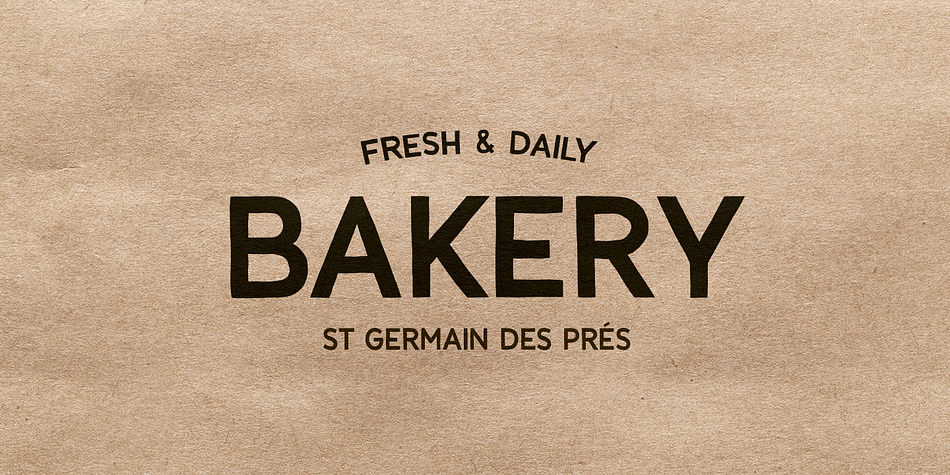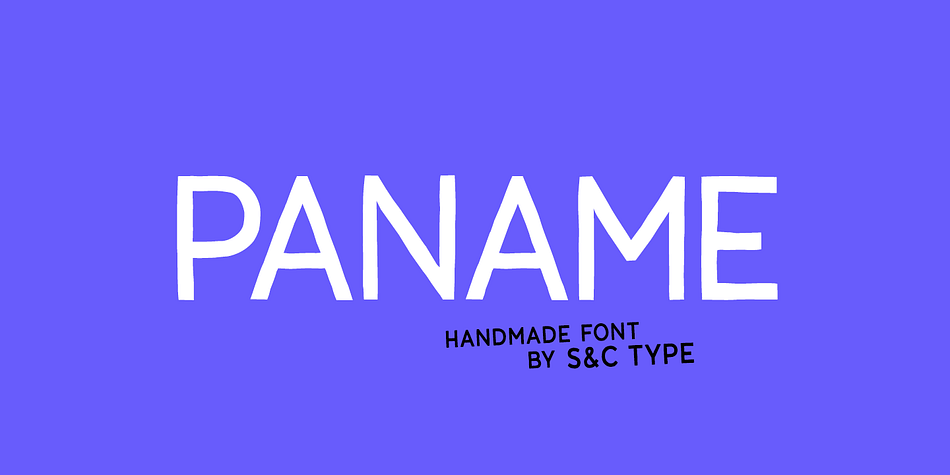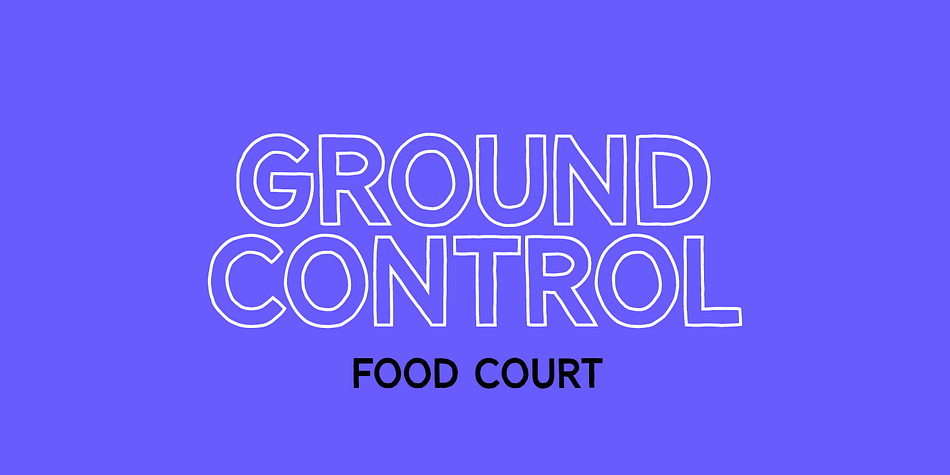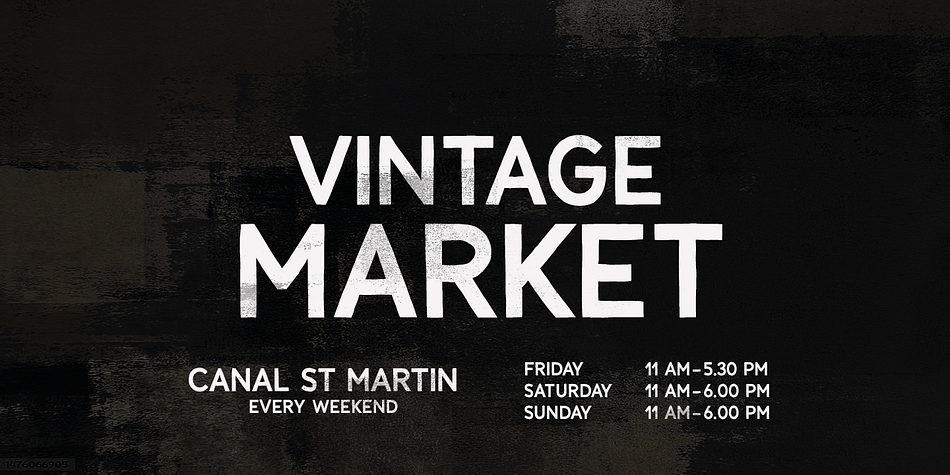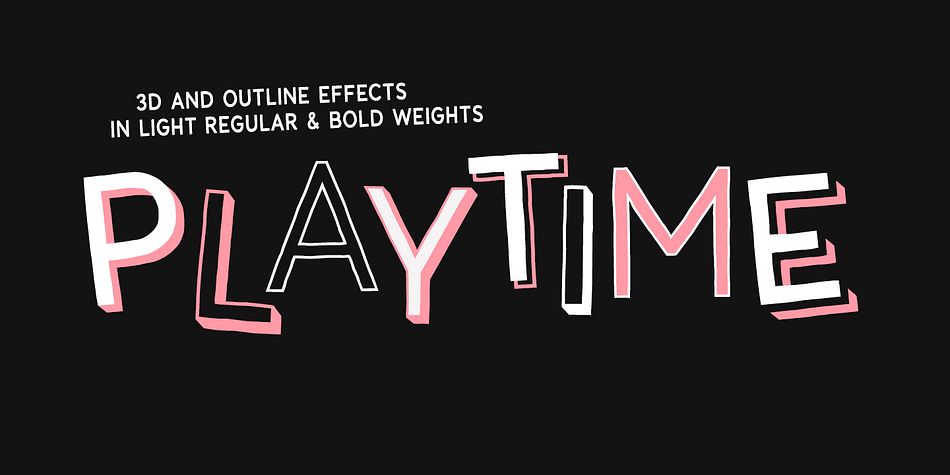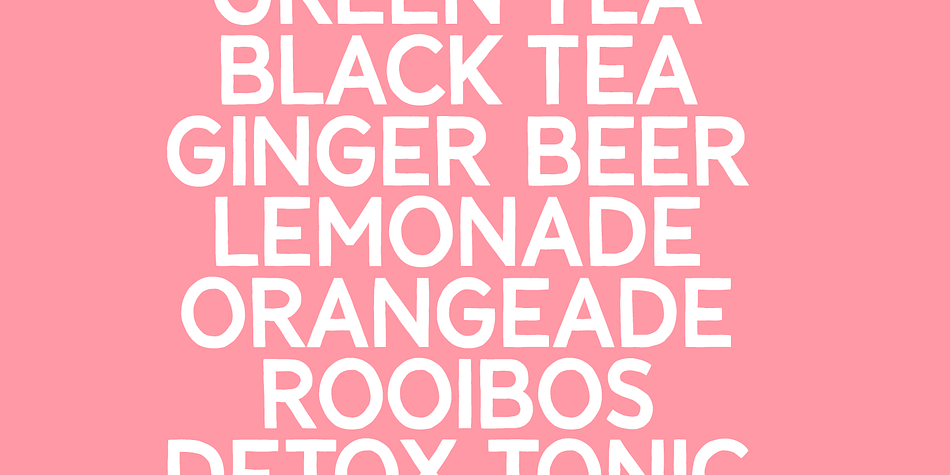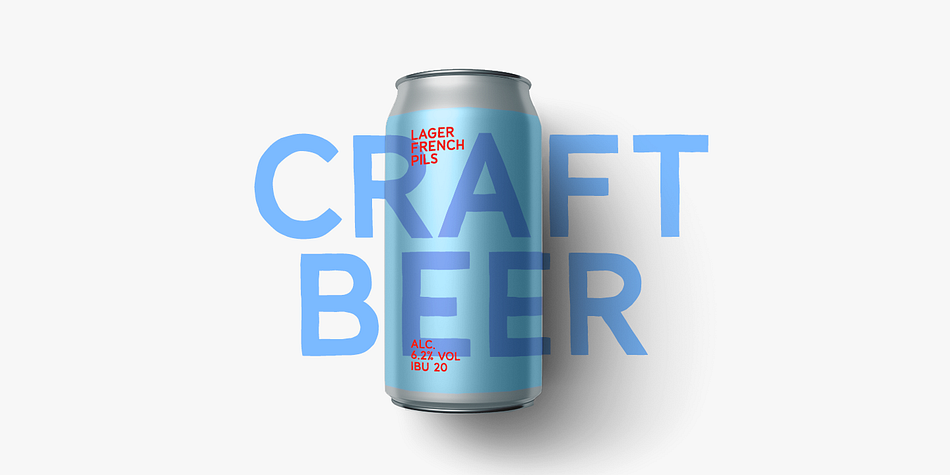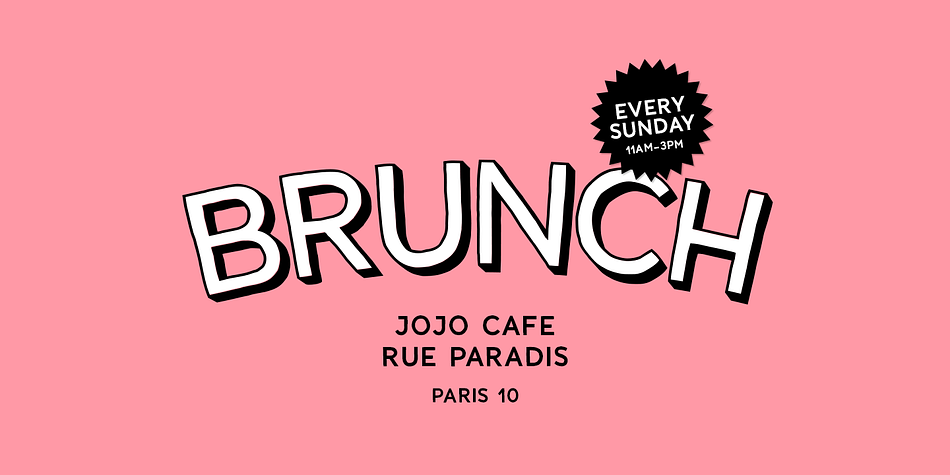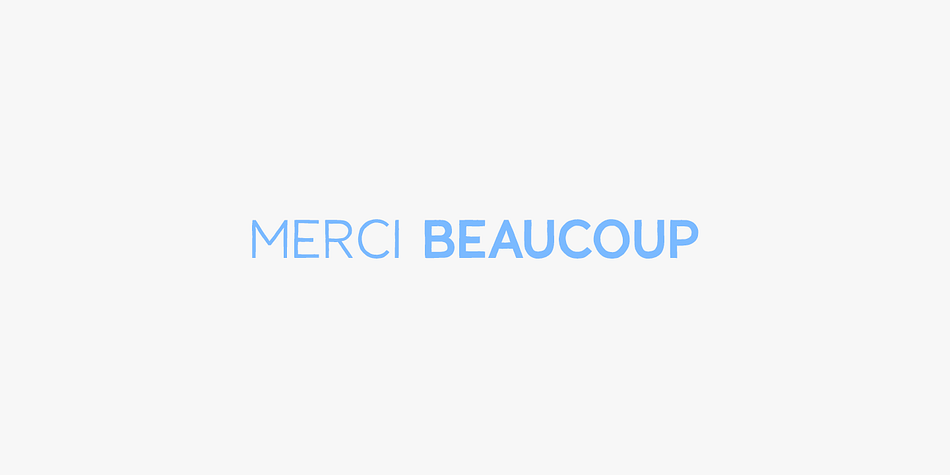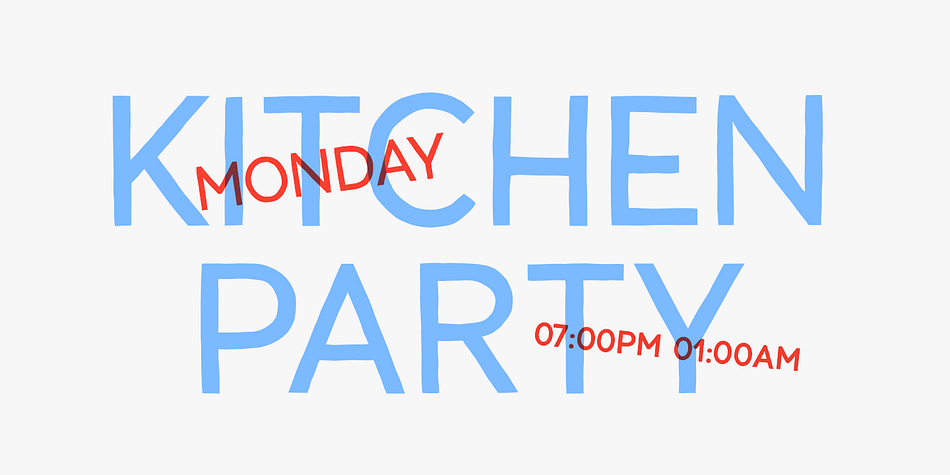
PANAME
Designed by Fanny Coulez, Paname is a display sans and hand drawn font family. This typeface has twelve styles and was published by S&C Type.
Paname is a handwritten font designed by S&C Type.
We wanted to create a retro pop font with a parisian spirit, Paname being the argot name of Paris.
The complete family includes 3 weights with their 3D and outline effects to improve your designs, 12 fonts in total, with standard and extended latin characters.
Foundry S&C Type
Styles Display Sans, Hand Drawn
Designer Fanny Coulez